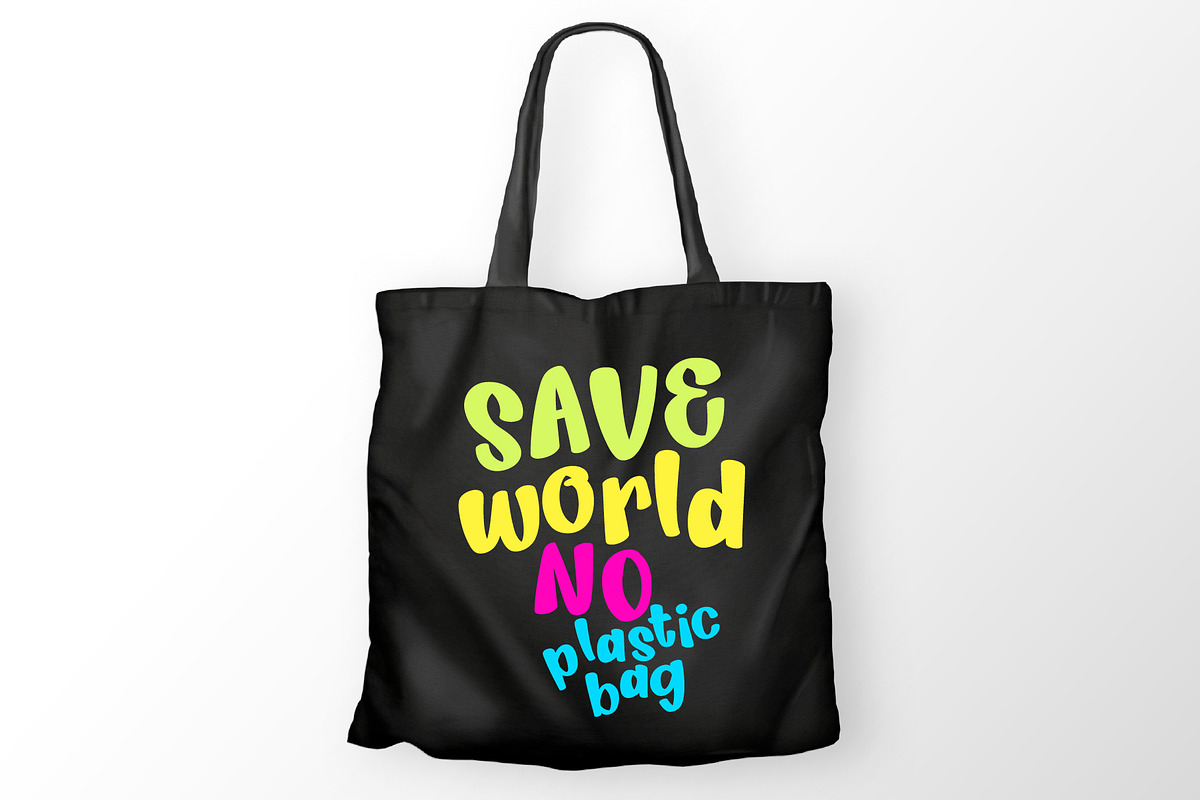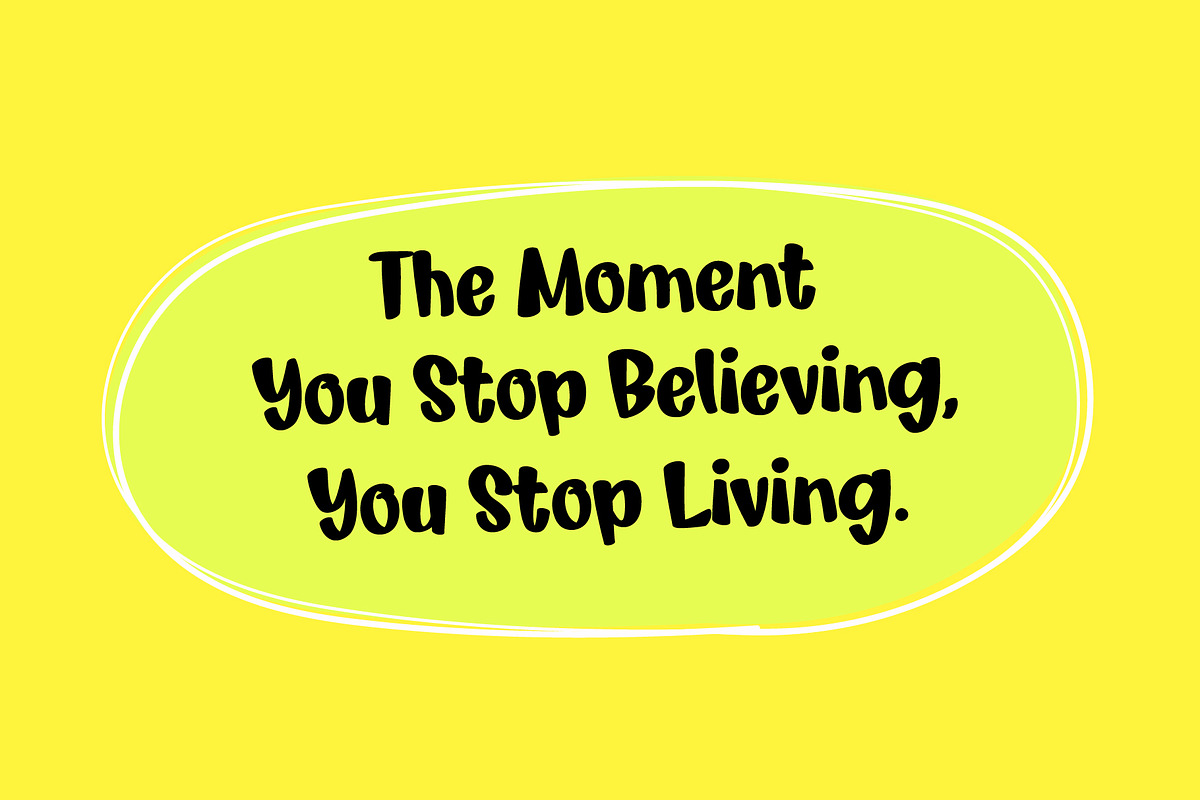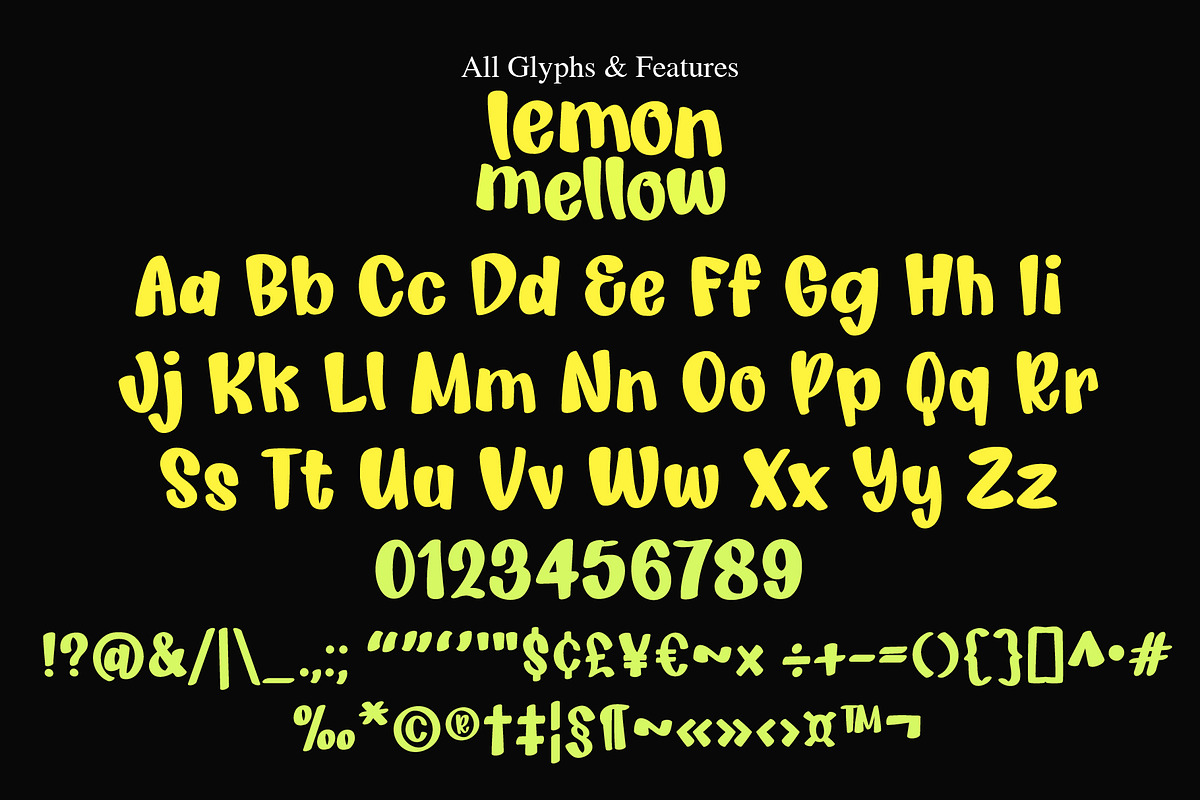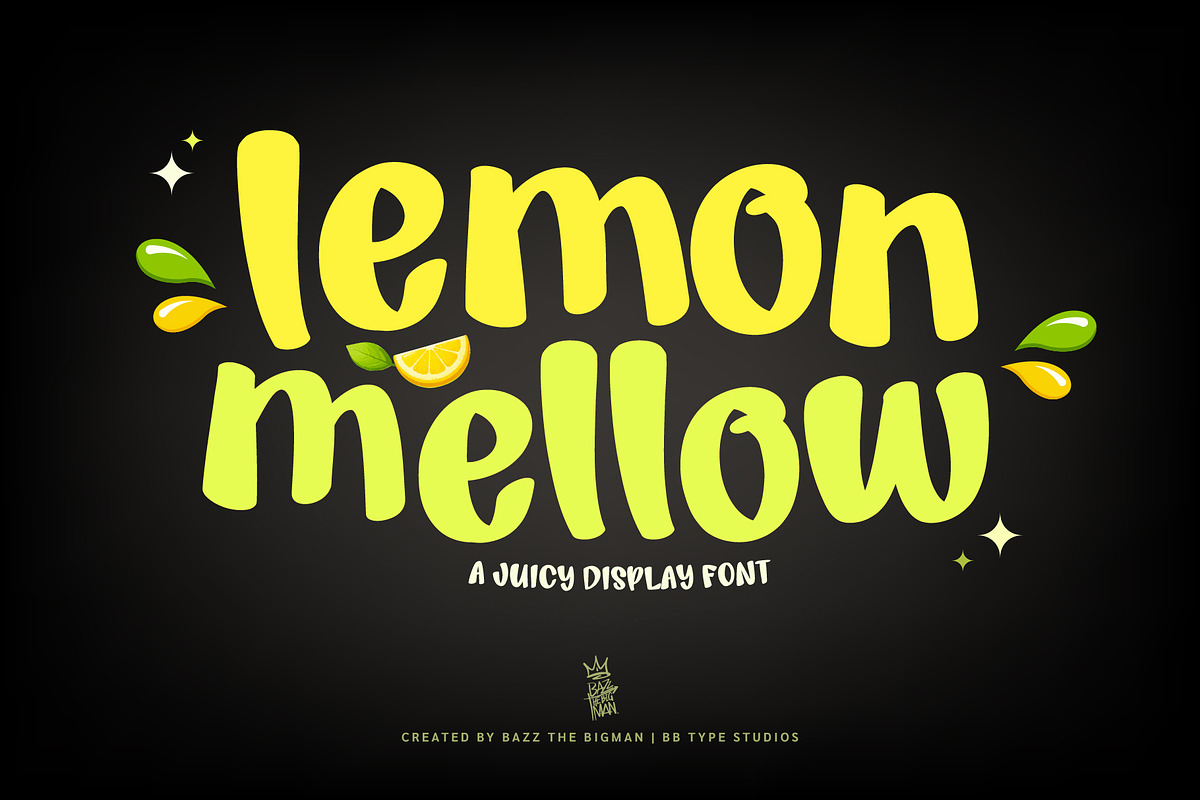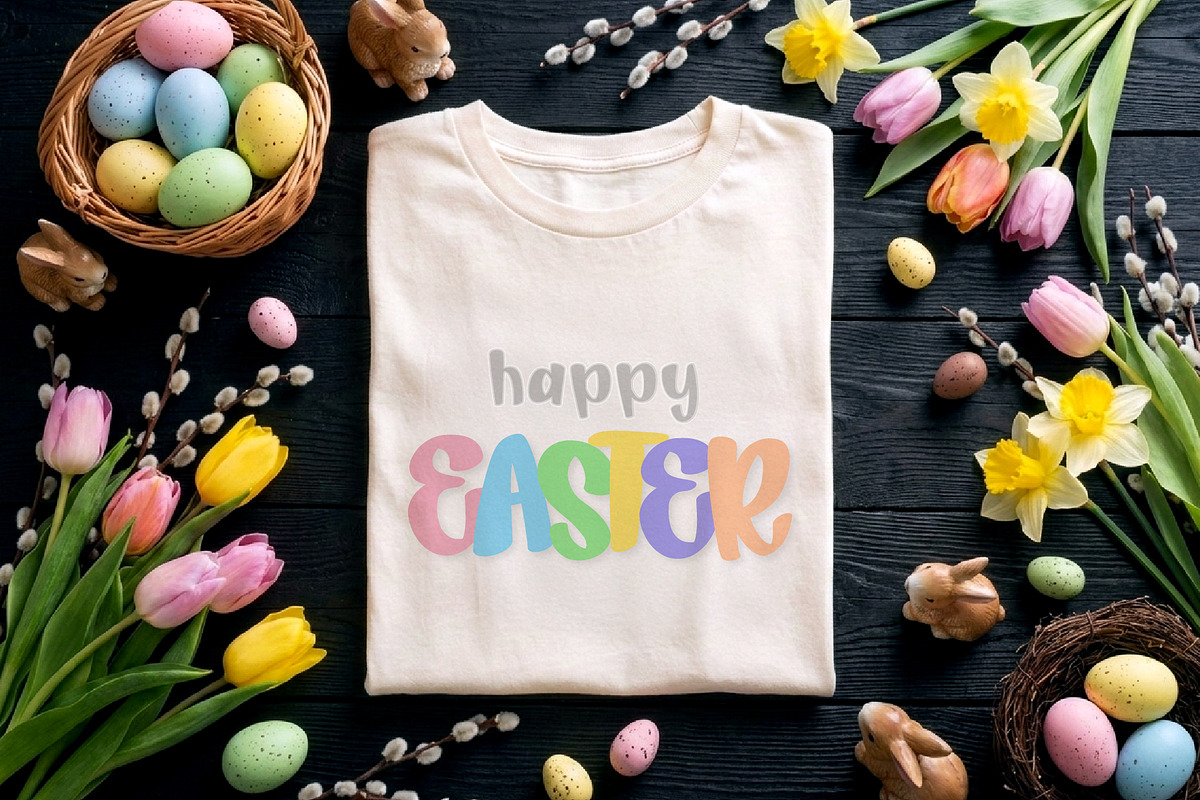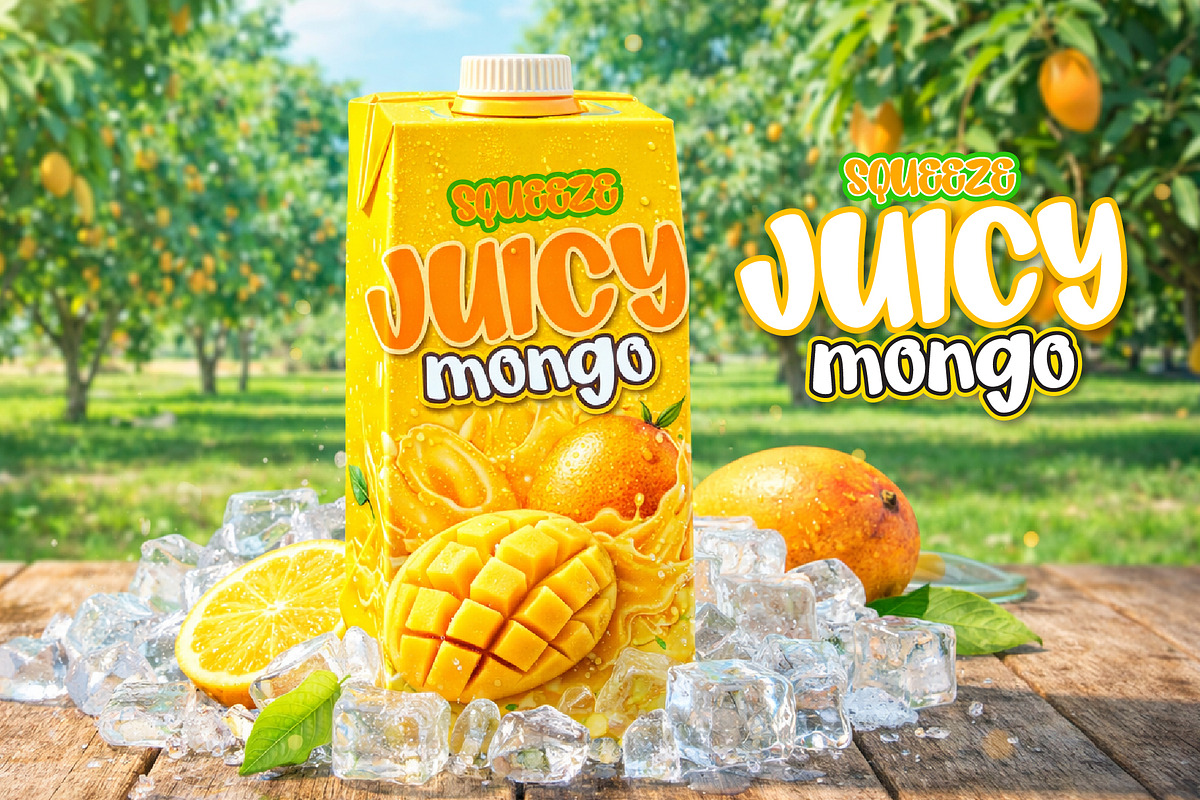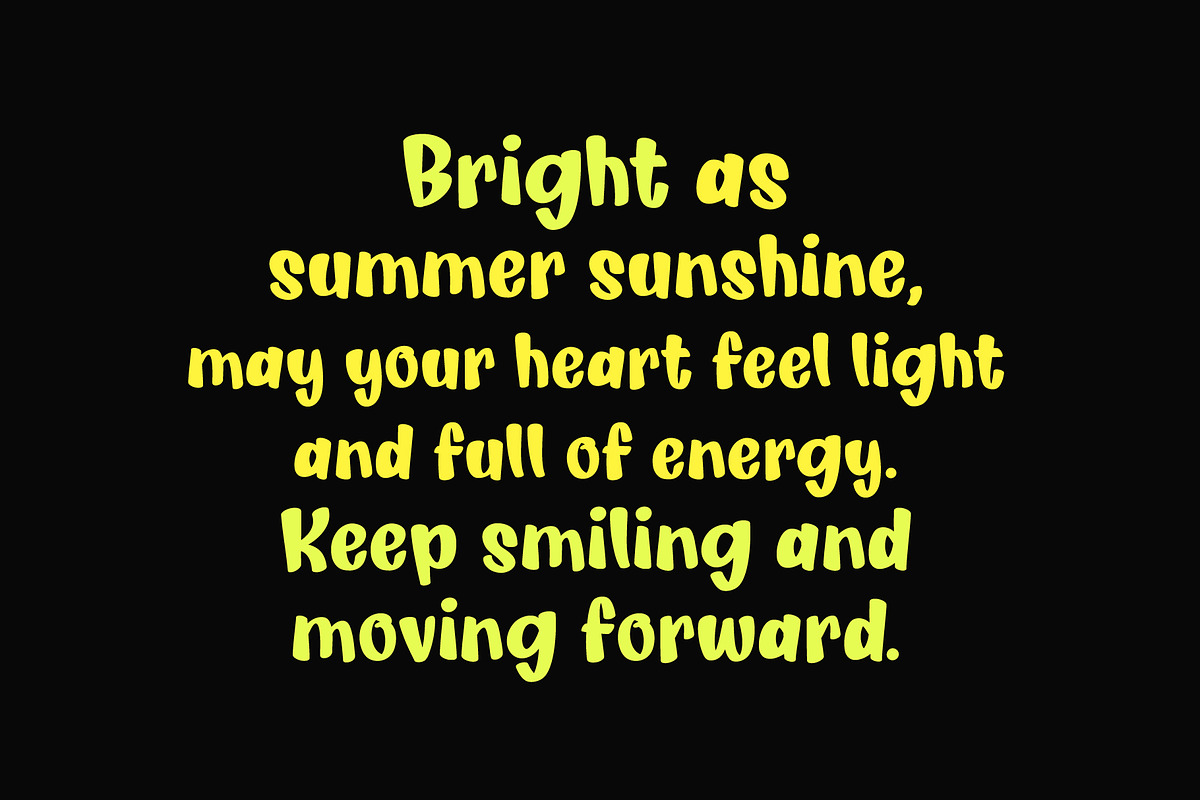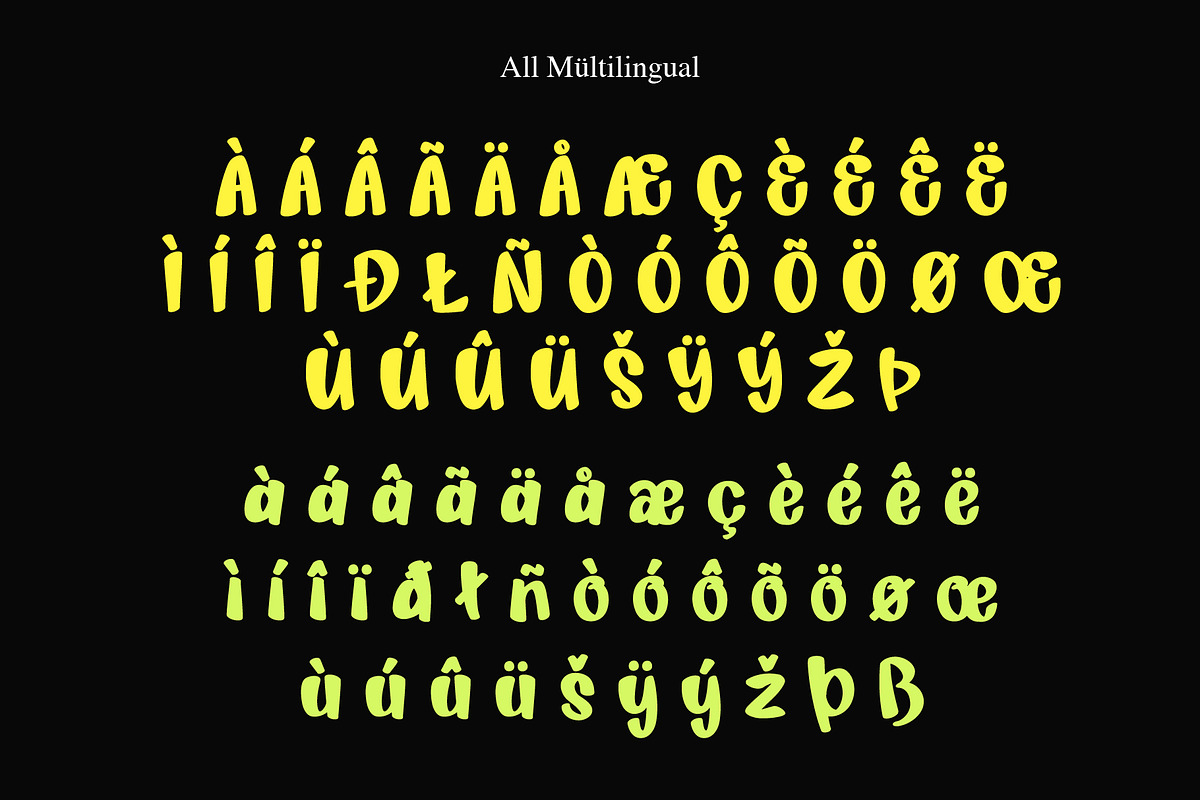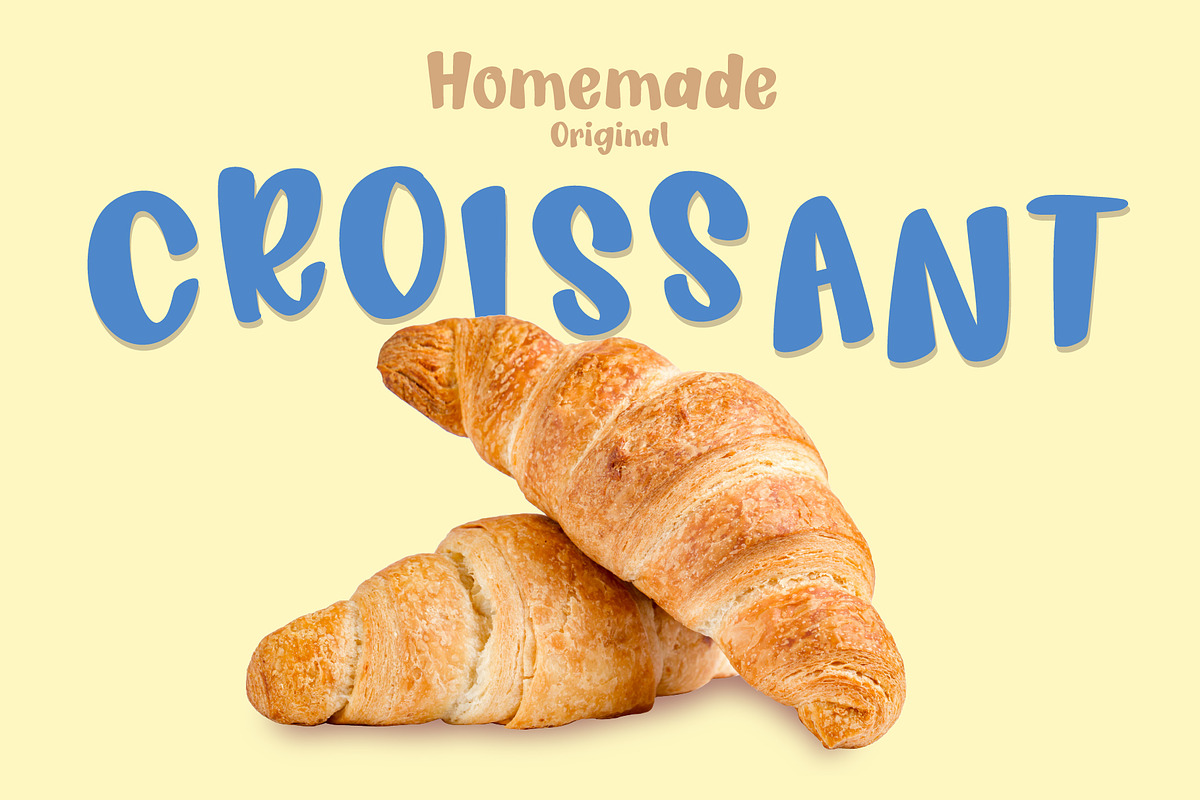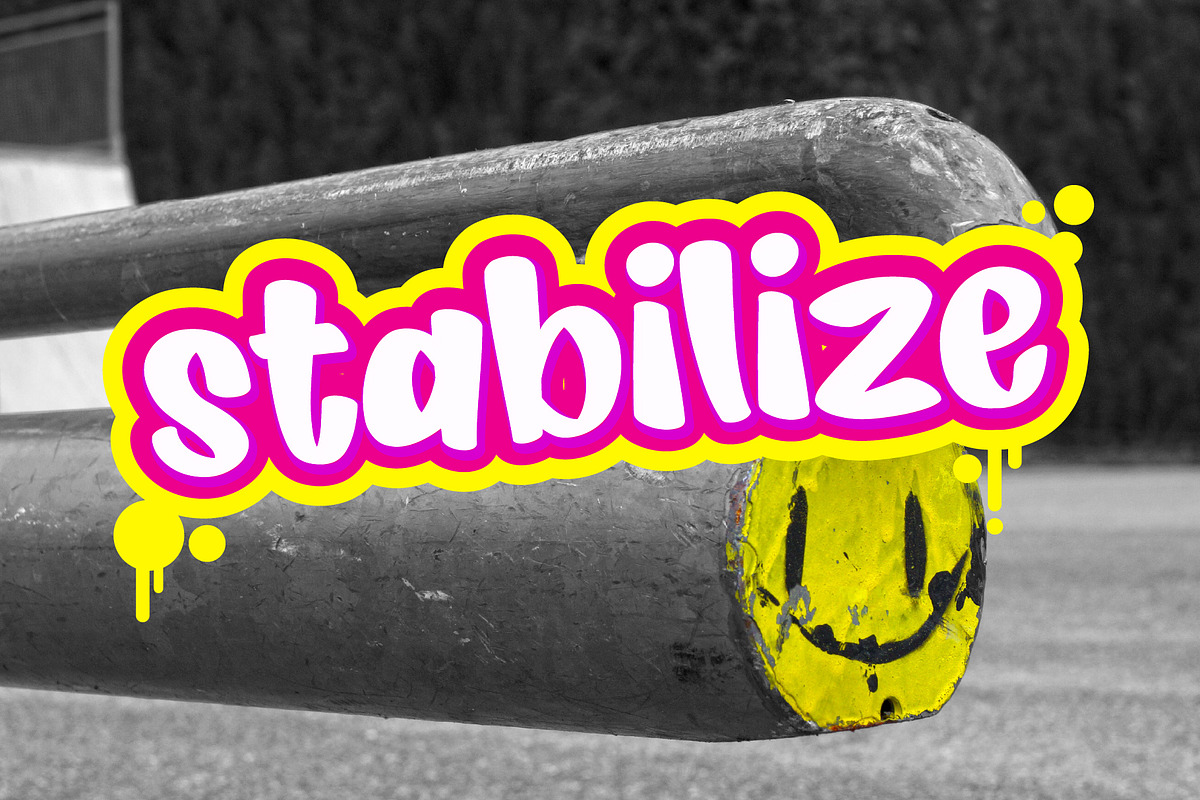
Lemon Mellow
Lemon Mellow – Playful Juicy Display Typeface
Lemon Mellow is a bold and vibrant display typeface crafted to capture the warmth of summer and the sweetness of fresh citrus. Its soft rounded curves and energetic letterforms make it ideal for branding projects that need a friendly, eye-catching personality.
This typeface works beautifully across food packaging, beverage labels, ice cream brands, bakery logos, children’s products, merchandise design, and social media graphics.
Whether you’re building a joyful brand identity or creating standout typography for digital and print, Lemon Mellow delivers charm, clarity, and commercial appeal.
Perfect for branding, packaging, logo design, advertising, product labels, summer campaigns, children’s brands, and modern playful typography.
Bring sunshine into your next project with Lemon Mellow.